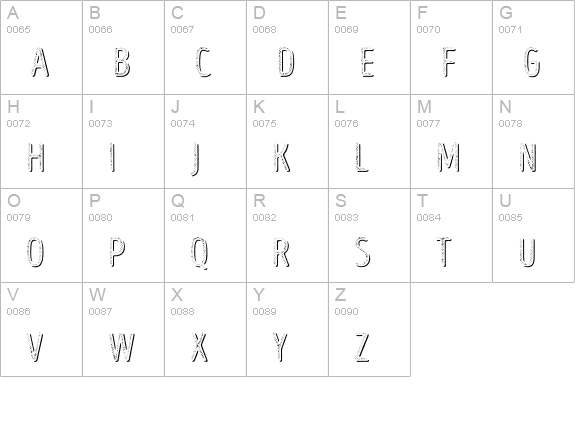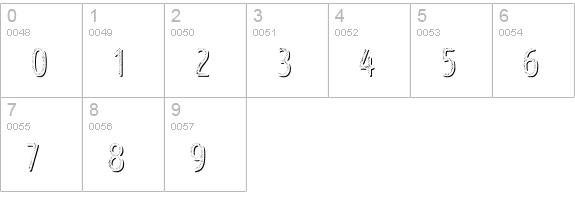
Intro Head R H2 Shade Font Details
The Intro Head R H2 Shade font is a stunning display typeface that exudes elegance and sophistication. Its bold and striking design makes it perfect for headlines, titles, and other prominent text in your designs. The unique shading effect adds depth and dimension, making your text stand out with a modern and stylish touch. What's even better is that this exceptional font is available for free download at FontsMarket.com. You can easily enhance your projects with the distinct charm of Intro Head R H2 Shade font without any cost. Whether you're working on branding, advertising, or any creative project, this font is sure to make a lasting impression. Download it today and elevate your designs with this eye-catching typeface.